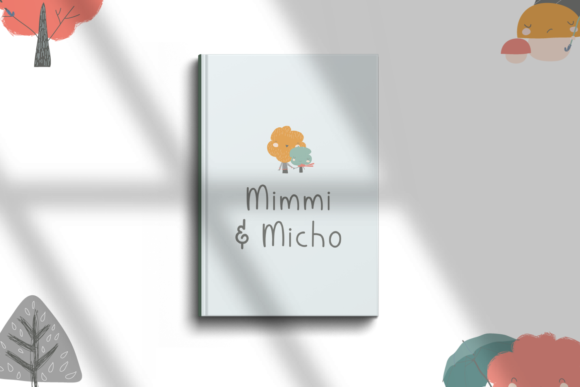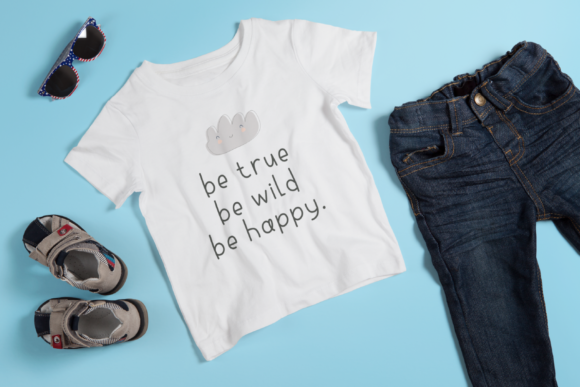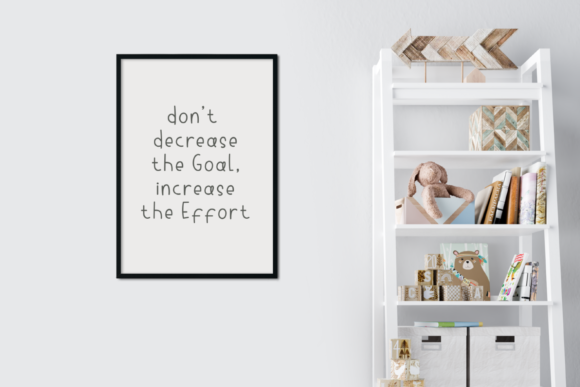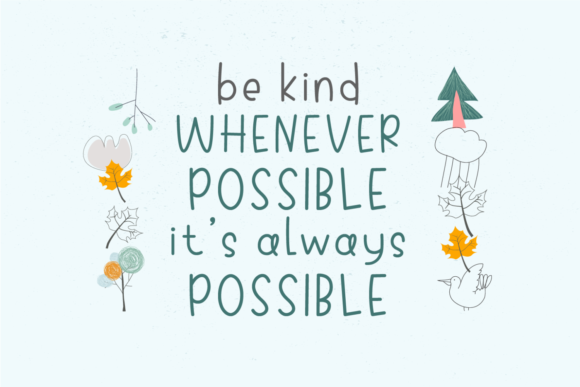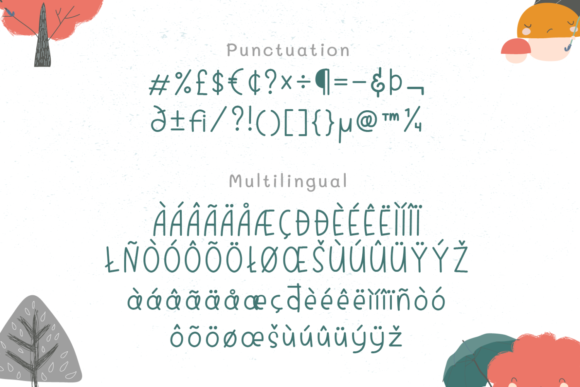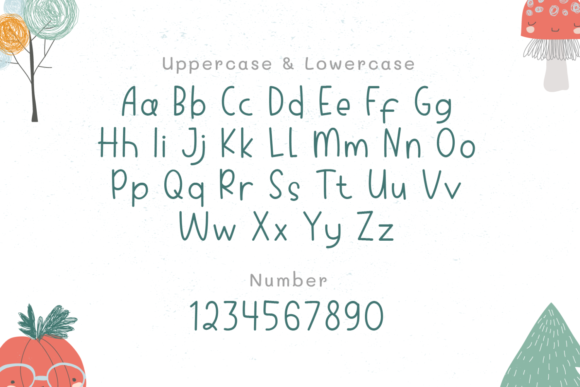
About Magical Smiles Font
Magical Smiles is a cute and simple lettered handwritten font that is perfect for all chalkboard quotes or teaching materials. With its authentic look, this font adds a personal and realistic feel to your designs, creating a charming and playful atmosphere. Whether you’re creating educational resources, classroom materials, or any other project related to teaching, Magical Smiles brings a touch of whimsy and creativity. Its hand-drawn style and natural imperfections make it feel like genuine chalkboard writing. Embrace this font and let it bring a sense of joy and magic to your designs, making learning and teaching experiences more engaging and enjoyable. Let Magical Smiles captivate your audience with its cute and authentic charm.